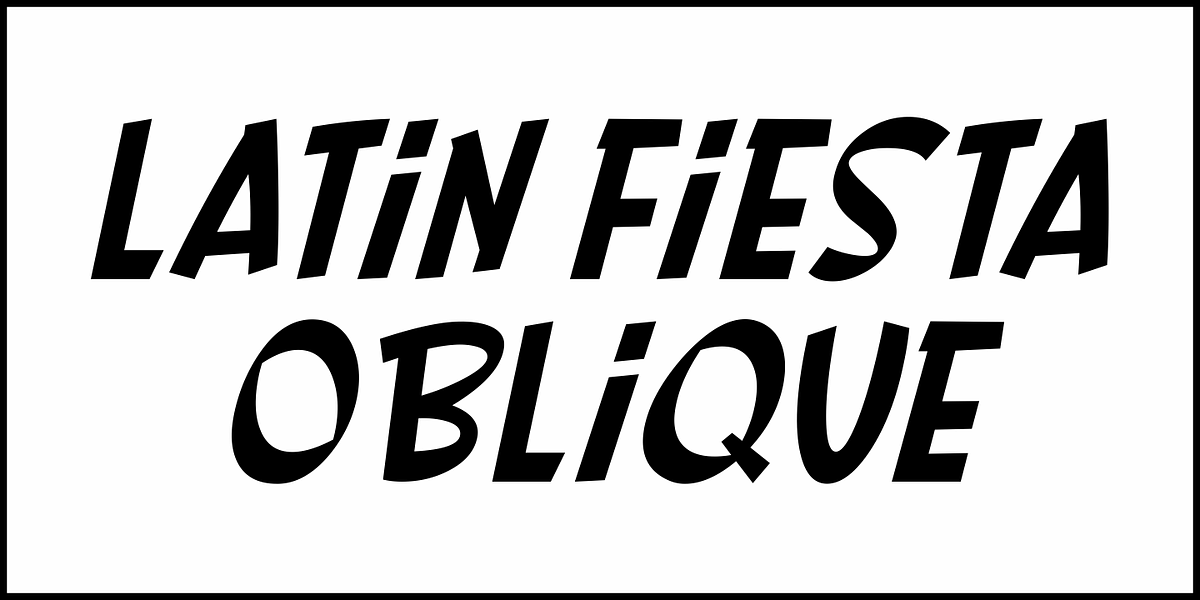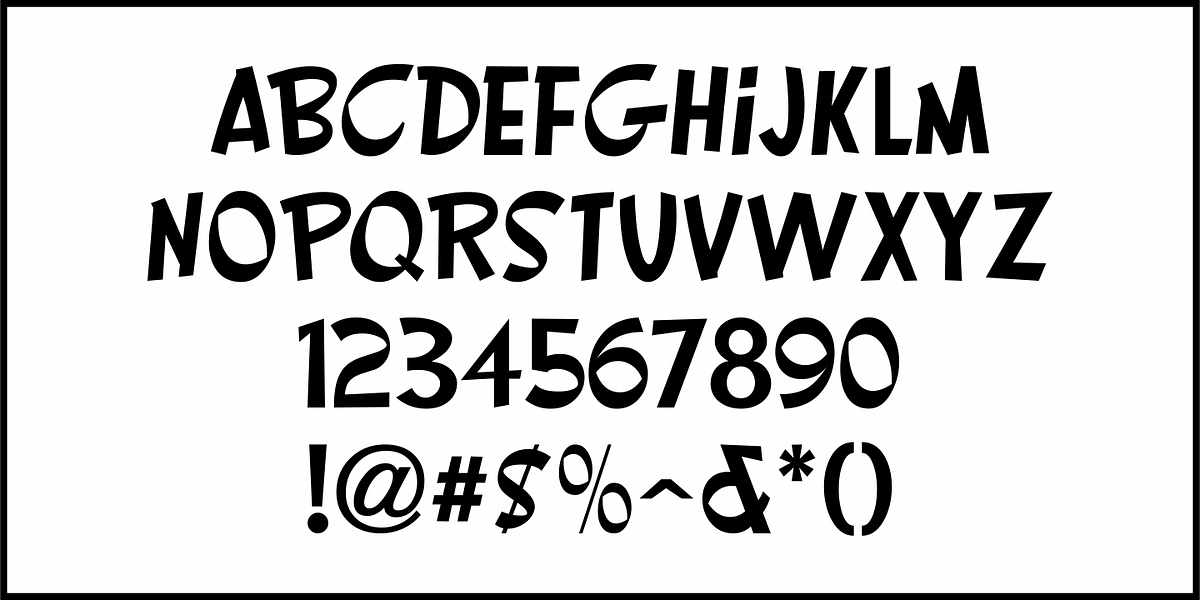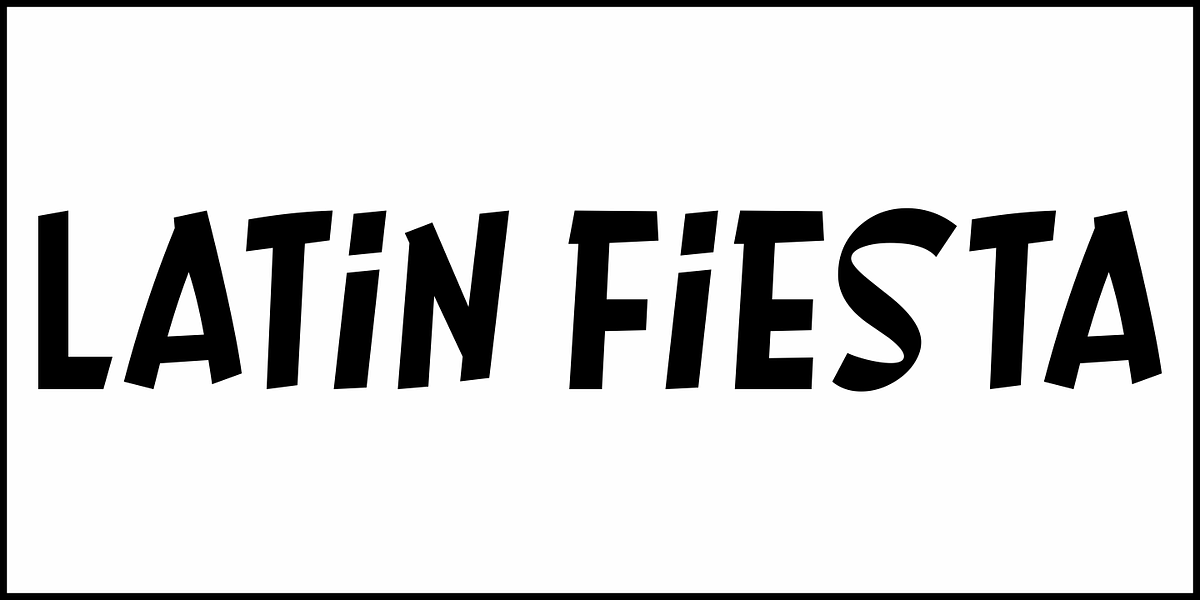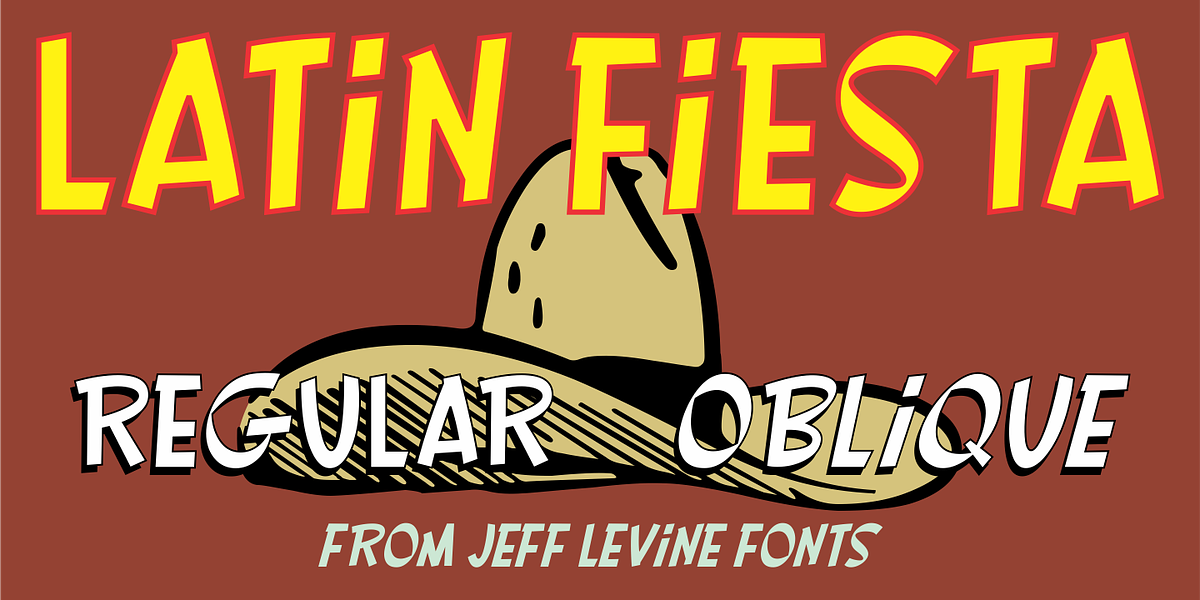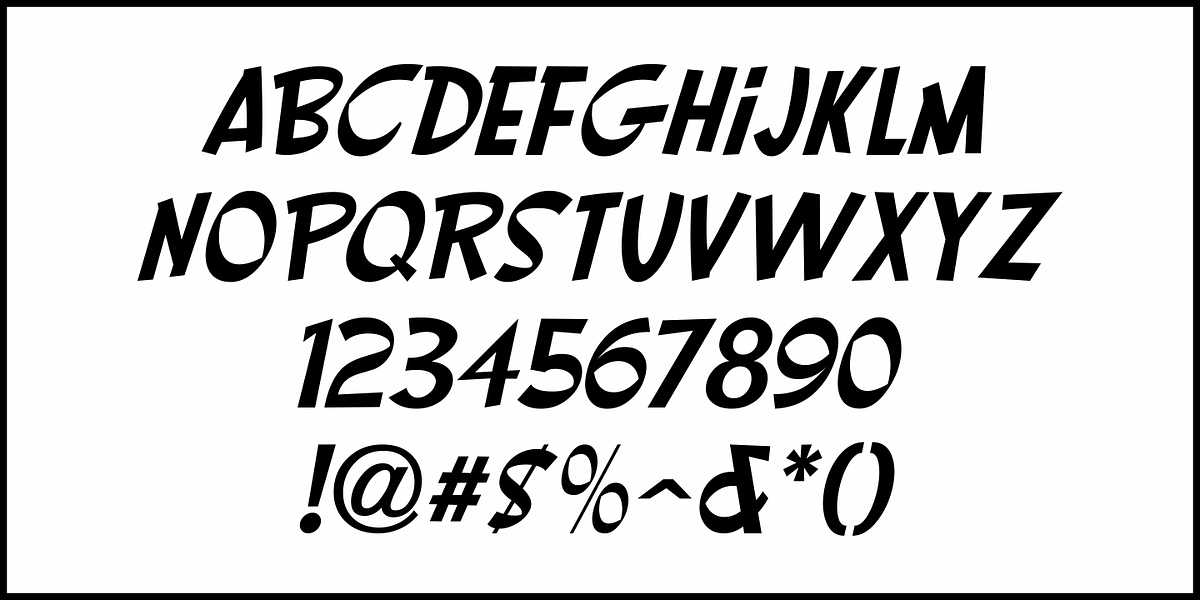
Latin Fiesta JNL
The playful, casual hand lettering on the 1941 movie poster for “Blondie Goes Latin” inspired Latin Fiesta JNL which is available in both regular and oblique versions.